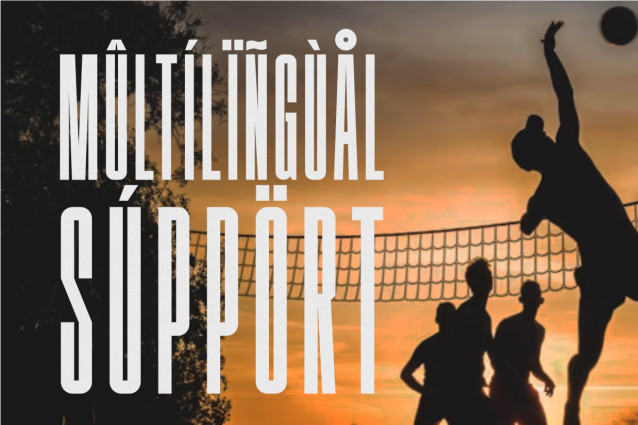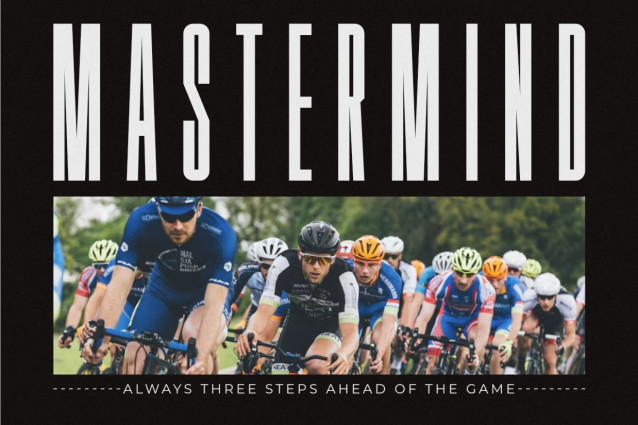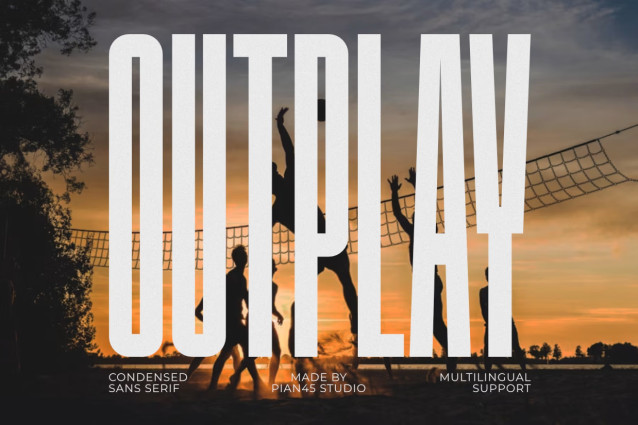
Outplay – Condensed Sans Serif Font
Outplay is a dynamic, high-energy Modern Condensed Sans Serif font engineered to bring an athletic competitive edge to your visual designs. Featuring ultra-tall vertical proportions, smooth rounded corners, and a space-saving condensed typeface structure, this all-caps font is built for sports branding, volleyball team logos, fitness apparel, and modern outdoor event posters.
Its commanding visual weight and sleek geometry guarantee exceptional legibility, making it the perfect choice for high-impact headlines, streetwear lines, esports graphics, and digital marketing materials that demand a bold, energetic presence.